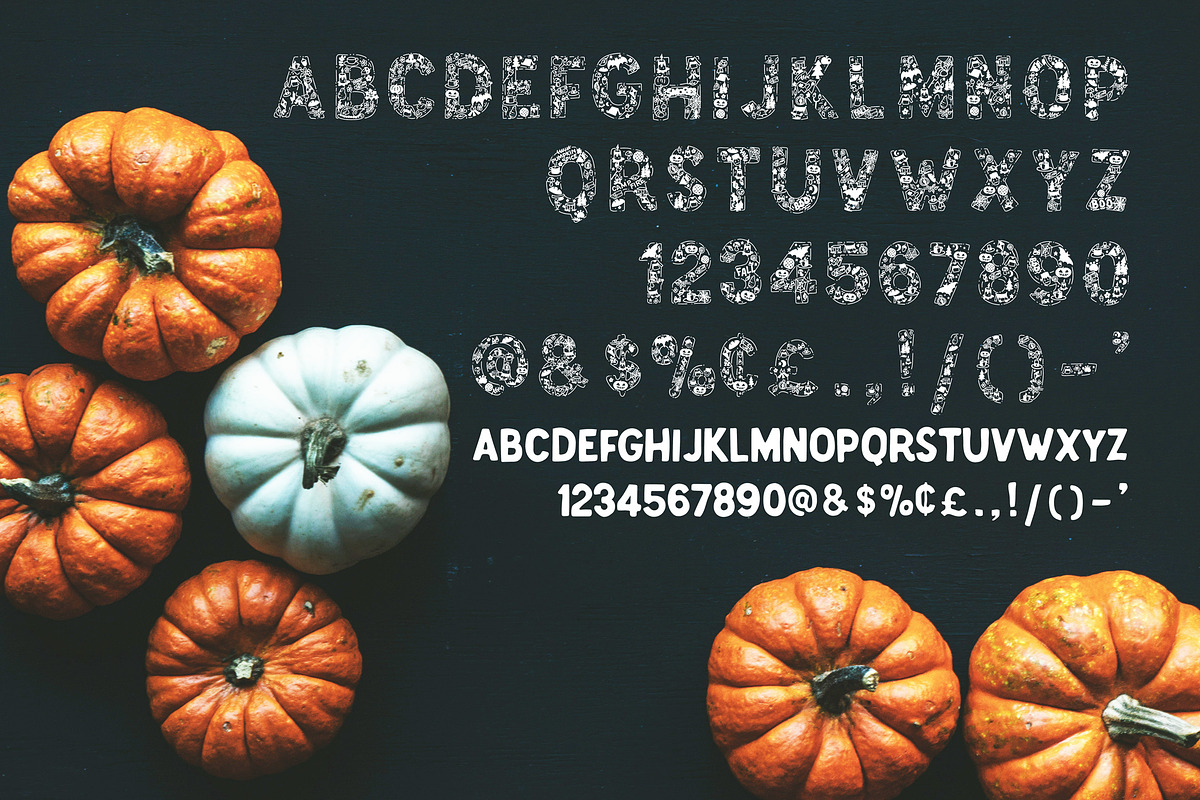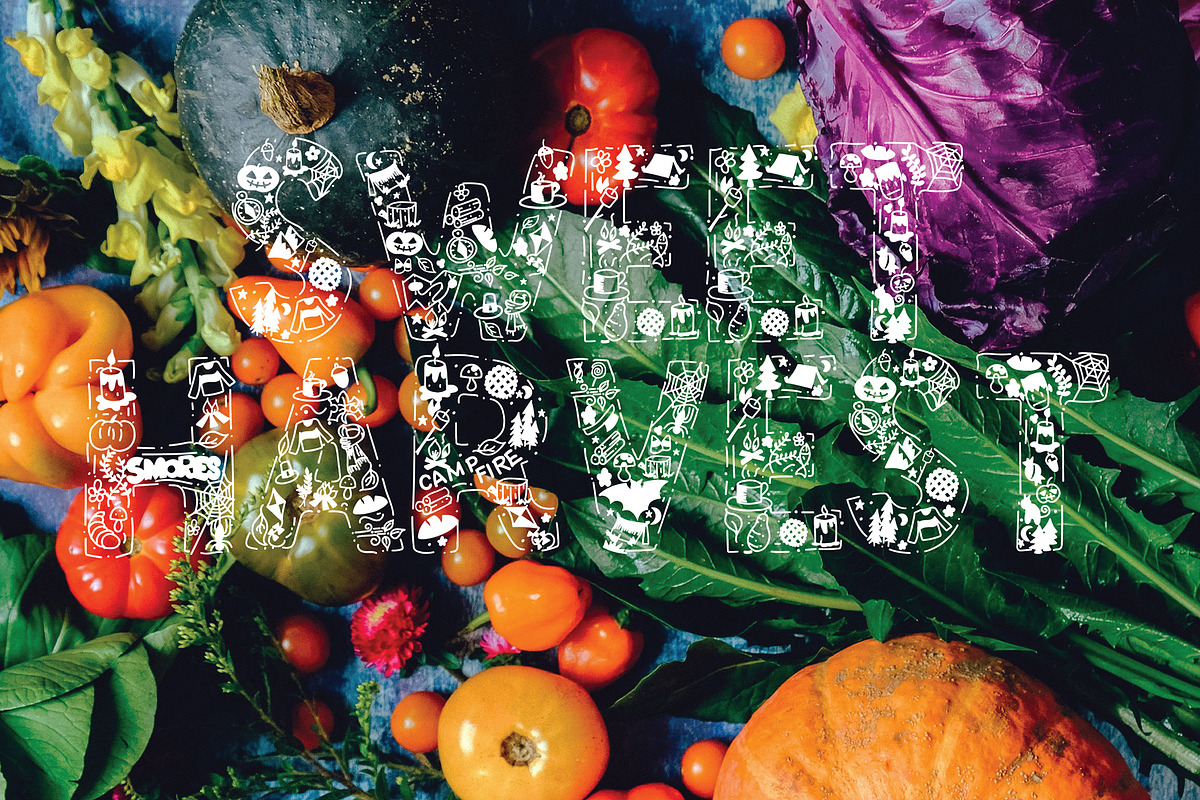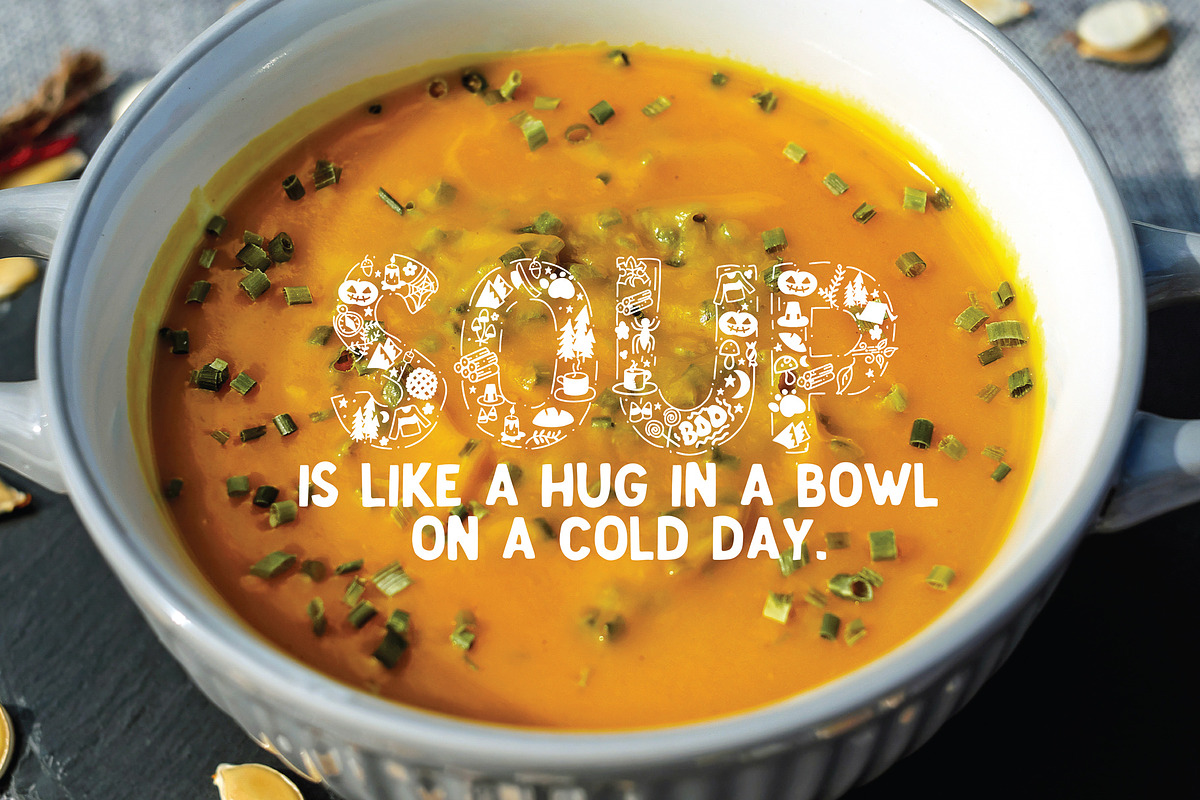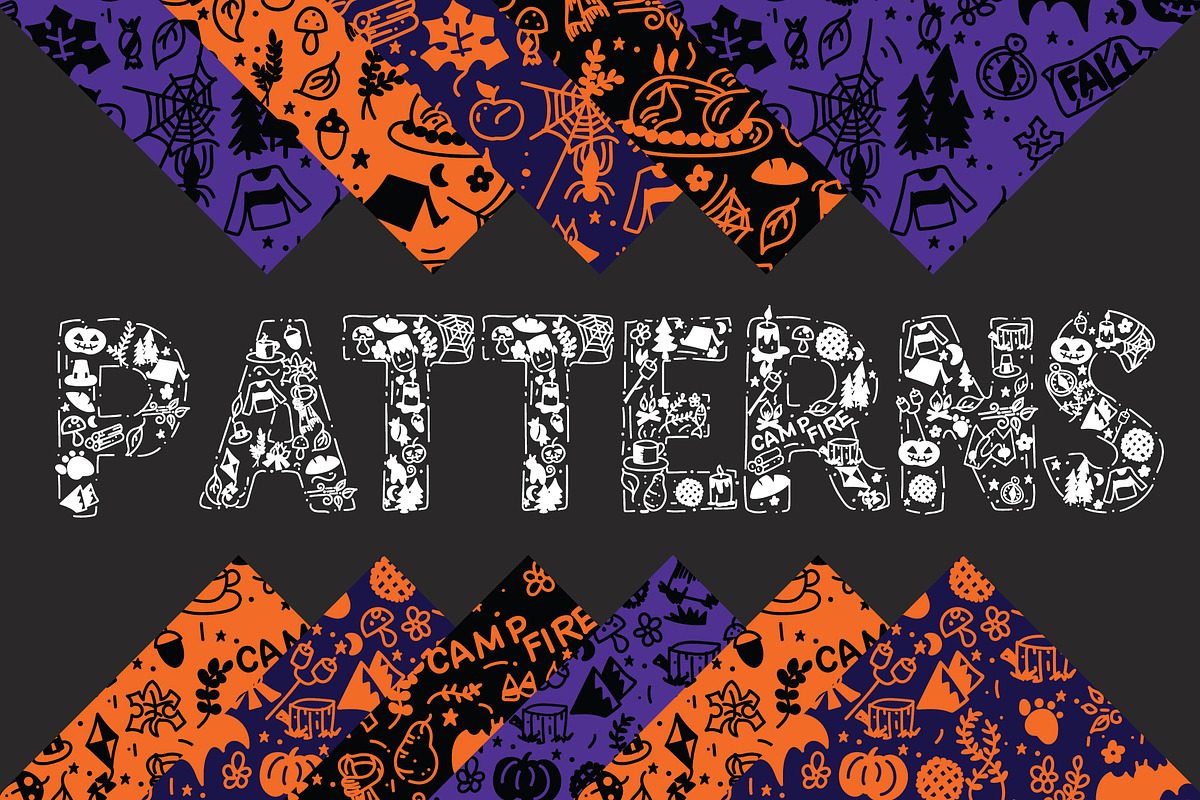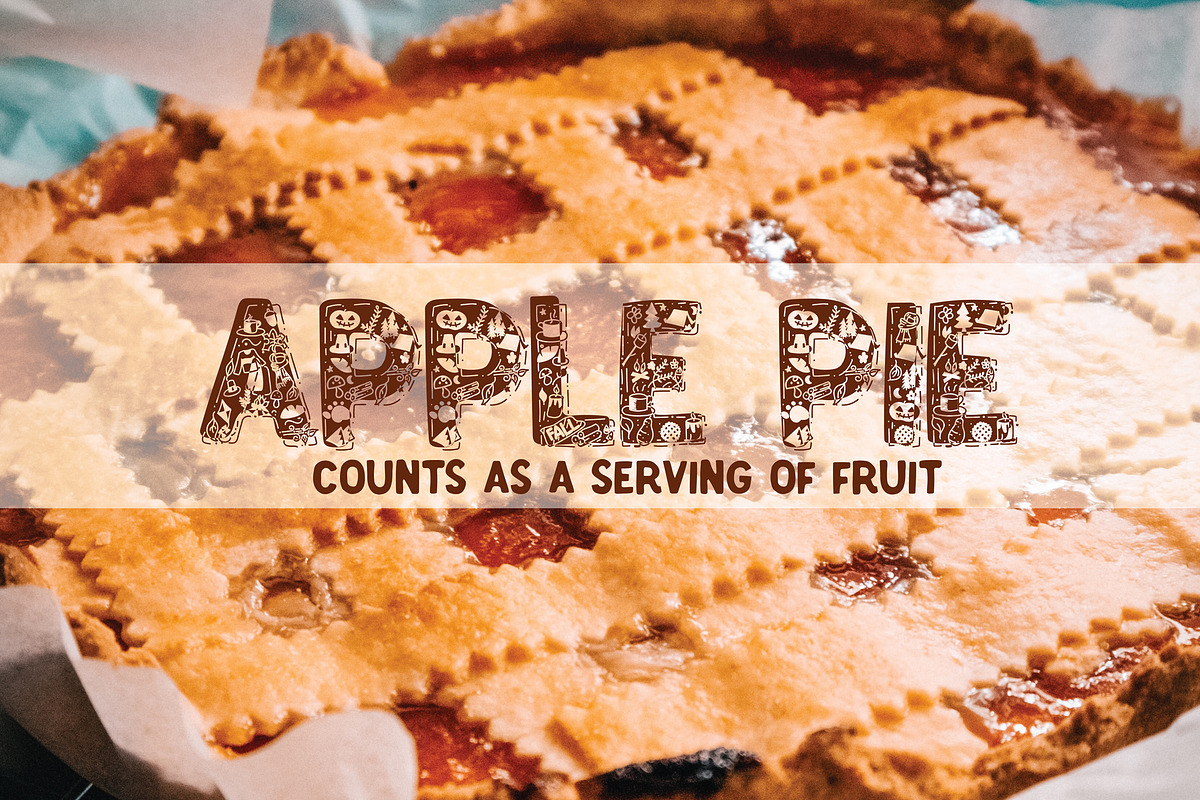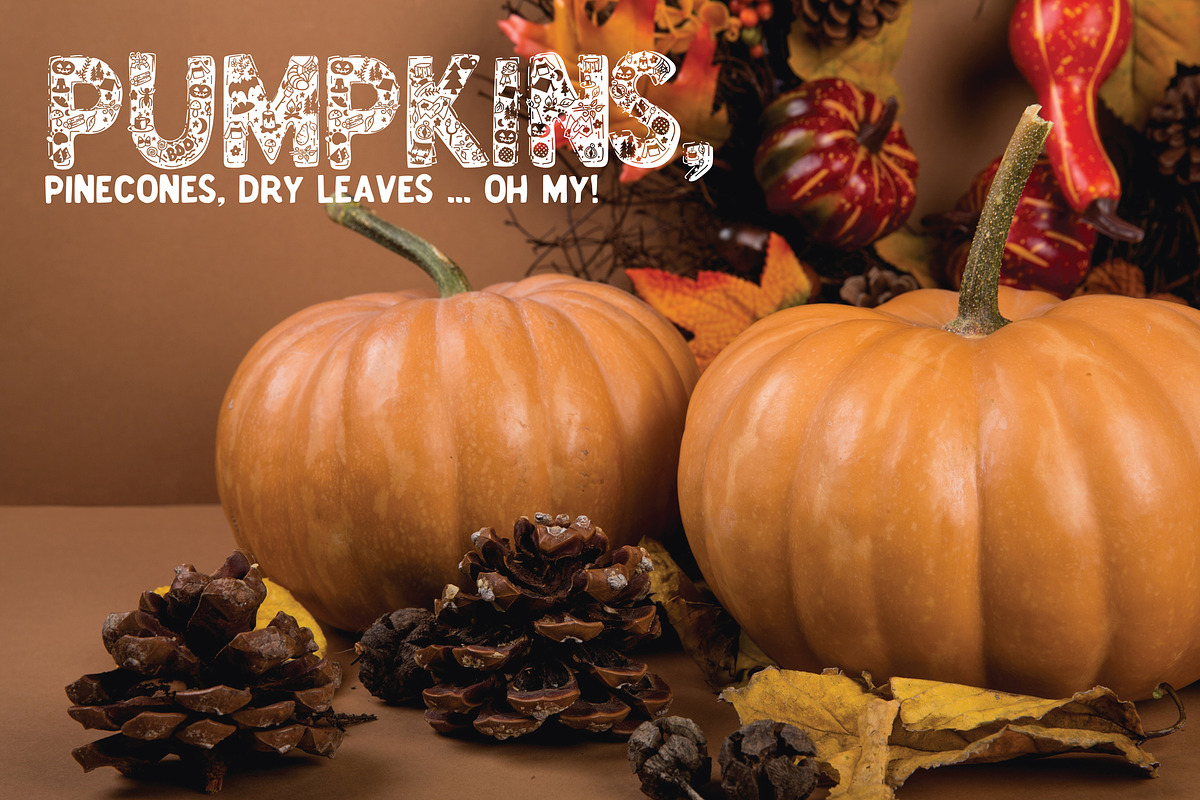
Happy Fall Display Font Duo
I have long fancied unique looking font so when the idea to make icon based font came to mind, I was excited to try and see how it turns out. Automatically, as we were heading into the Fall season, I thought to start off there. So here is Happy Fall, a headline (Display) font for your fancy fall projects!!
Together in this set is an icon-based font, the Happy Fall Regular and a the solid option which helps give the icon Regular a lot of contrast when juxtaposed. You may just put on on top of the other while they are still editable fonts or overlap them as you desire, convert to curves and using pathfinder (in illustrator), select the exclude option to create a compound object with the solid and regular font options.
There's too much detail in the Regular for you to use in small print so it is advisable to use them mainly for headlines and big display type.